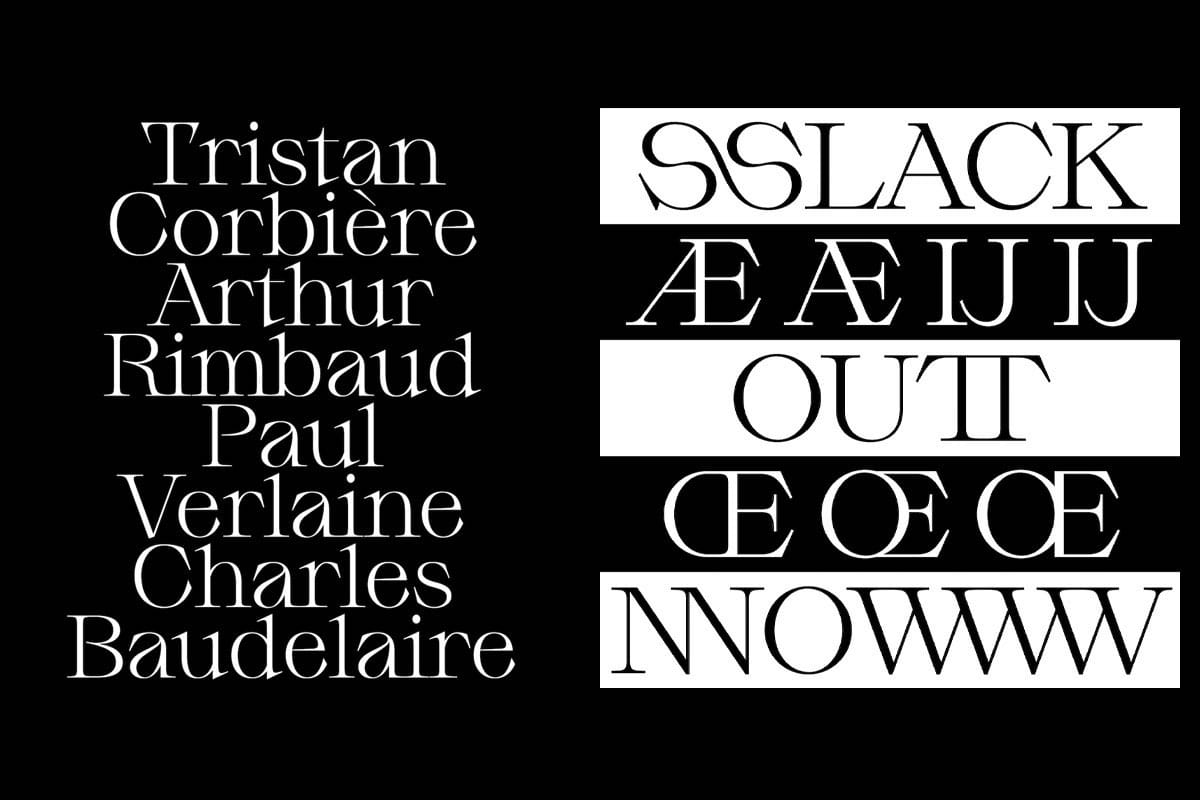
Cool New Serif Fonts References
Cool New Serif Fonts References. Regular, medium, bold, and semibold. It has a variable letter stroke width, more irregular than some other.
Regular, medium, bold, and semibold. Web list of 40 modern serif fonts for graphic designers: It has both upper and lowercase.
Web fraunces is a serif, “old style” font, inspired by 20th century typefaces like the cooper series. Web the gibson font family hits the right spot for many people and on many levels. Download free fonts for windows and macintosh.
This Font Is Modern Lonely Bridges Font Dec 1, 2022 Lonely Bridges Is Aesthetic Serif Display Font With Alternates &.
In typographic terms, serifs are the small strokes or extensions at the end of a longer stroke, such as the leg of a “k”. Web new platinum serif font is luxurious font that will engage your audience and make your promotions and projects stand out. Droid serif droid serif is a font family designed by.
Web This List Of Samples Of Serif Typefaces Details Standard Serif Fonts Used In Printing, Classical Typesetting And Printing.
Web new fonts designers are sharing free fonts every day! Web list of 40 modern serif fonts for graphic designers: The serif fonts are simple and modern looking fonts which are perfect for branding, logos, greeting cards, typographic quotes, book covers,.